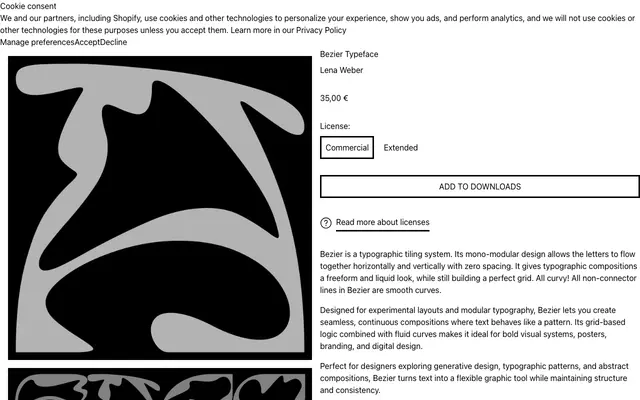
Bezier Typeface
A mono-modular tiling typeface by Lena Weber in which all letterforms are built from smooth curves, allowing them to interlock horizontally and vertically without spacing to form continuous pattern-like compositions.
Designed by Lena Weber, Bezier operates as a typographic tiling system where uppercase letters and numerals share a common module footprint, enabling them to butt together on a grid without gaps. Every non-connector line is a smooth Bézier curve, giving compositions a fluid, almost liquid quality despite sitting on a strict geometric structure. The 36-glyph set is intentionally limited, aimed at poster work, bold branding and experimental layout rather than running text.
Bezier is a mono-modular display typeface built on a tiling grid system where all non-connector strokes are smooth curves, placing it firmly in the experimental/display category rather than any conventional serif or sans classification.